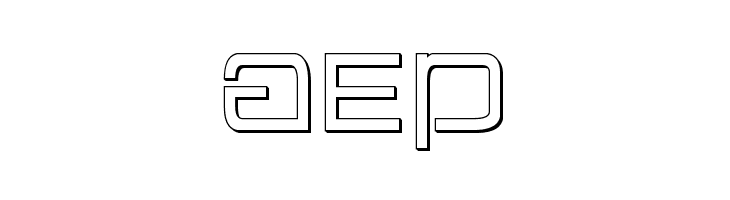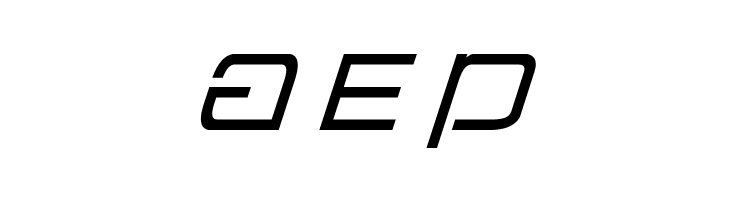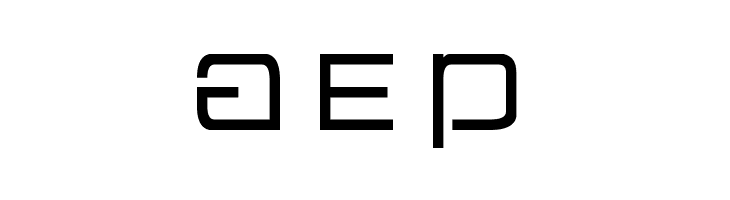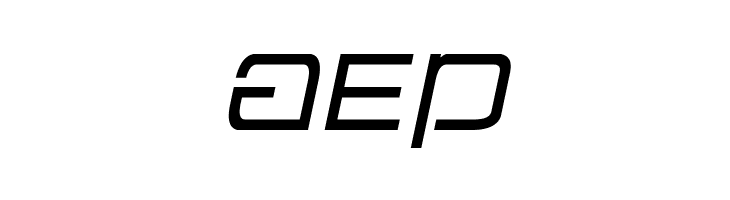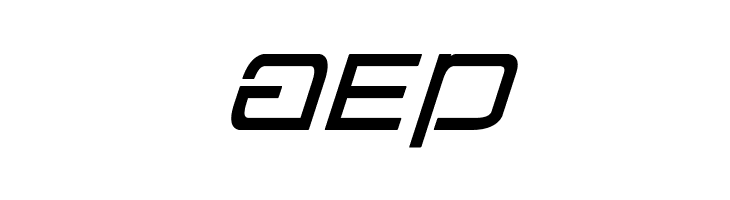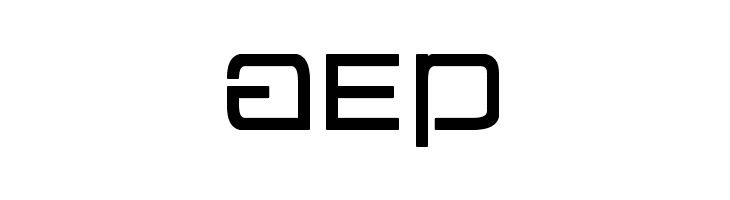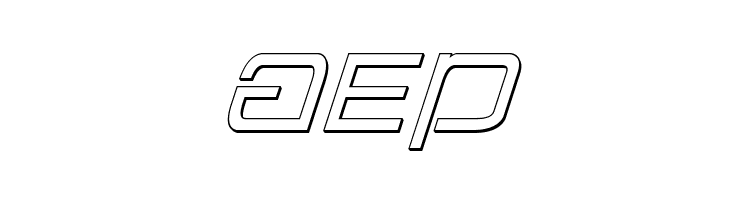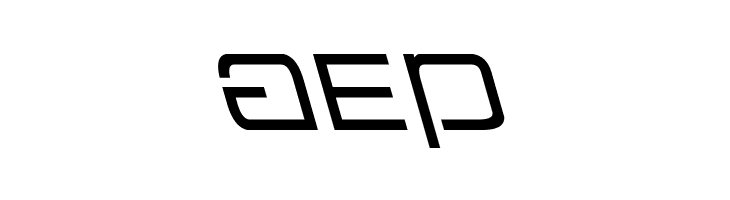
A futuristic, angular font with a dynamic slant and geometric design.
A futuristic, geometric outline font with a modern and technical style.
A modern, outlined, italic font with a futuristic and dynamic design.
A modern, geometric semi-bold font with clean lines and rounded corners.
A sleek, modern semi-bold italic font with medium contrast and geometric shapes.
A sleek, modern semi-italic font with geometric lines and a futuristic feel.
A futuristic, italic font with geometric precision and a sleek, modern design.
A futuristic, geometric font with a clean, monospaced appearance.
A futuristic, italic font with geometric precision and a sleek, modern design.